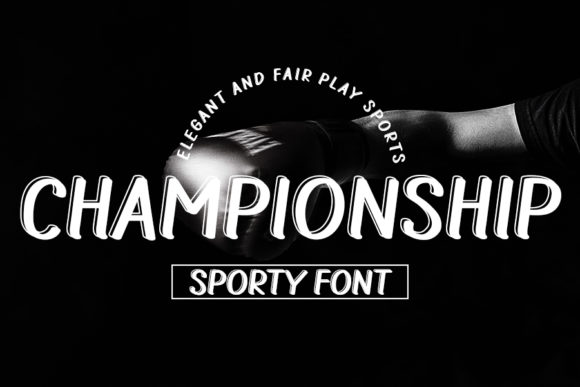
Prepare yourself for the grand entrance of Championship Font, the display font destined to ignite your designs and elevate your creations to unparalleled heights! Every letter in this masterful font embodies authenticity and precision, meticulously crafted to serve as the cornerstone of your most ambitious endeavors.
With Championship Font by your side, you possess the power to transform your vision into a captivating reality. Its bold and refined strokes command attention, effortlessly enhancing the visual appeal of any design. Whether you're crafting a captivating logo, an eye-catching poster, or a website that exudes professionalism, this font will seamlessly elevate your message, leaving a lasting impression on your audience.
Unleash the limitless possibilities that await you with Championship Font. Its versatility is a testament to its exceptional design, effortlessly adapting to a symphony of creative styles. From the sleek modernity of minimalist aesthetics to the timeless elegance of vintage designs, this font possesses the inherent ability to complement and enhance any vision.
Embrace the boundless potential of Championship Font and witness the remarkable transformation it brings to your creative endeavors. Its meticulously crafted characters will serve as the foundation upon which you build a legacy of stunning designs, captivating your audience with every stroke.
Allow Championship Font to guide you on a journey of creative exploration, where imagination knows no bounds. Its unwavering authenticity and meticulous design will empower you to craft masterpieces that resonate with your audience, leaving an indelible mark on the world of design.